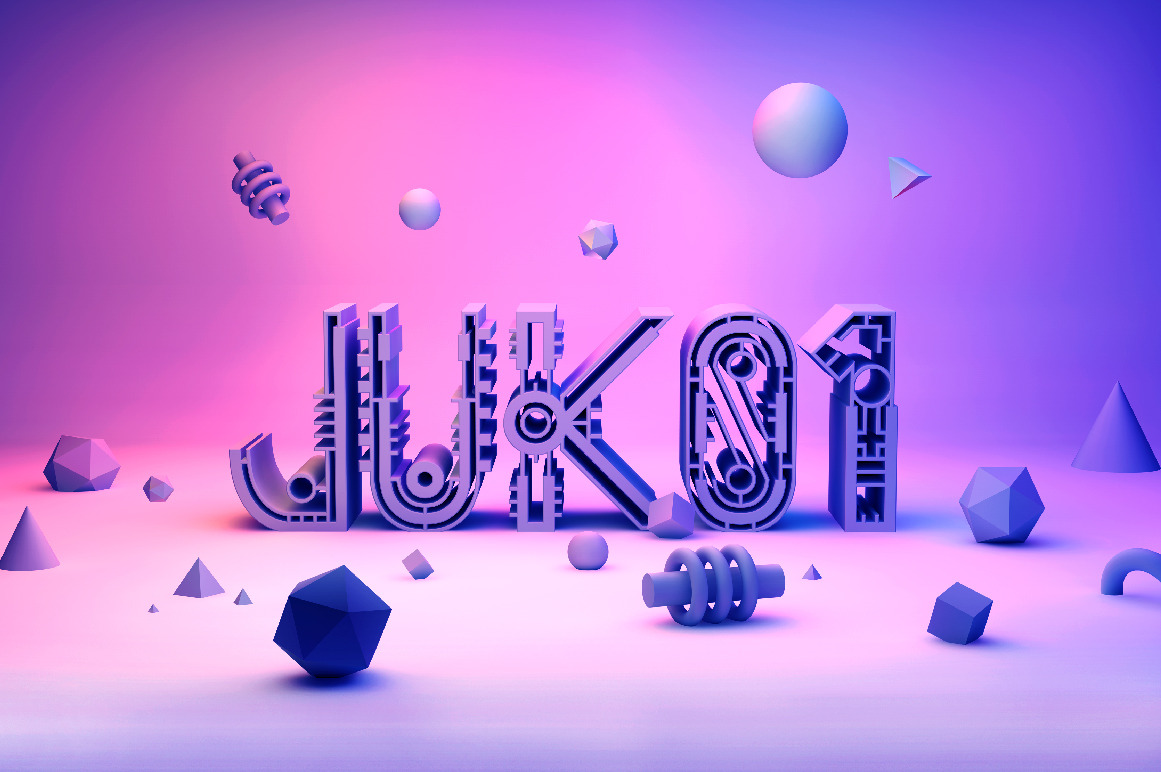
Experimental typeface I love trying different things I’m very happy with the results here. See the whole presentation here: http://www.behance.net/gallery/Juk01-Typeface/4751501